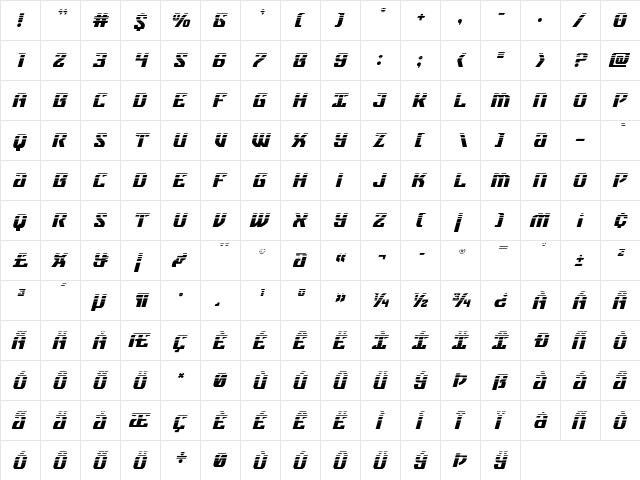
Federal Blue Halftone Italic Italic
Design Context for Federal Blue Halftone Italic Typeface
Federal Blue Halftone Italic is a composed and adaptable typeface that performs quietly and consistently across a wide range of design contexts. The dynamic lean of this cut emphasises speed and emphasis in any layout.
Pro Tip: Try Federal Blue Halftone Italic for annotation and caption copy alongside an upright companion — the contrast in angle creates a dynamic but ordered typographic system.